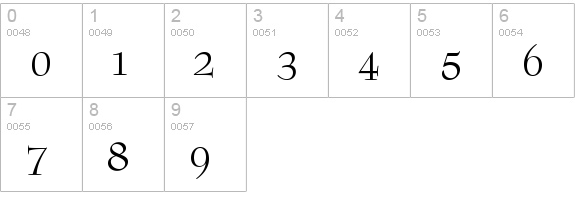
Bernhard Modern OSF Font Details
Bernhard Modern OSF font is a timeless and elegant typeface that exudes sophistication and class. With its tall, slender letterforms and delicate serifs, this font is perfect for adding a touch of refinement to any design project. Whether used for titles, body text, or headlines, Bernhard Modern OSF font brings a sense of classic beauty to your work. What sets this font apart is that it is not only visually stunning but also conveniently free to download. You can easily access Bernhard Modern OSF font at FontsMarket.com, where you can explore its full range of characters and styles. Whether you're working on a print project, website design, or branding materials, this font is a versatile choice that will elevate your work to the next level. Choose Bernhard Modern OSF font for a touch of timeless elegance that will make your design stand out.